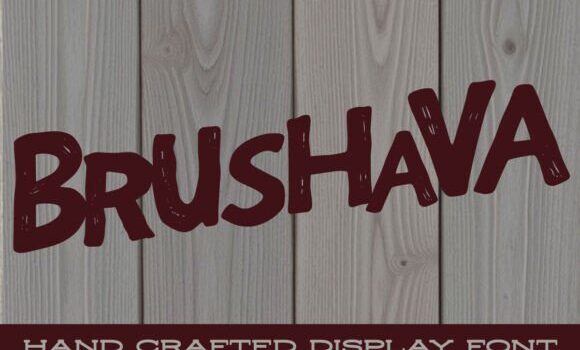
brushava
Brushava Font – Free Download Introduction to Brushava Font Brushava is a vibrant and expressive hand-painted font that exudes creativity and charm. 📸 Preview Gallery 2 images 📌 Product Name Brushava Font 👤 Author stompstock 📂 Category Explore ⬇️ Download